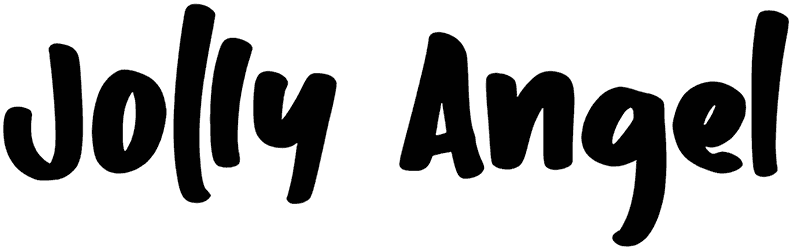
Jolly Angel Font
Let’s create a playful and natural style and win the hearts of your viewers. This handwritten font with its bulky and soft hand-lettering is a cute item for various happy-themed designs. Give it a go and set the Jolly An…
Let’s create a playful and natural style and win the hearts of your viewers. This handwritten font with its bulky and soft hand-lettering is a cute item for various happy-themed designs. Give it a go and set the Jolly Angel font on your intended layouts, namely comics, posters, games, apparel, or the like, and have a delight.